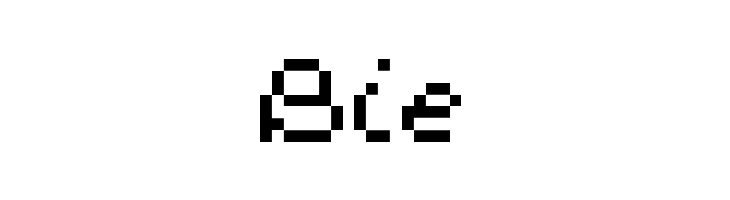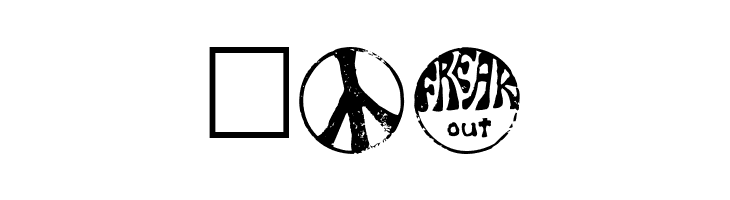
A pixelated, retro-style font inspired by early video game graphics.
A decorative, retro font inspired by 60s and 70s counterculture, featuring hand-drawn, stamp-like characters.